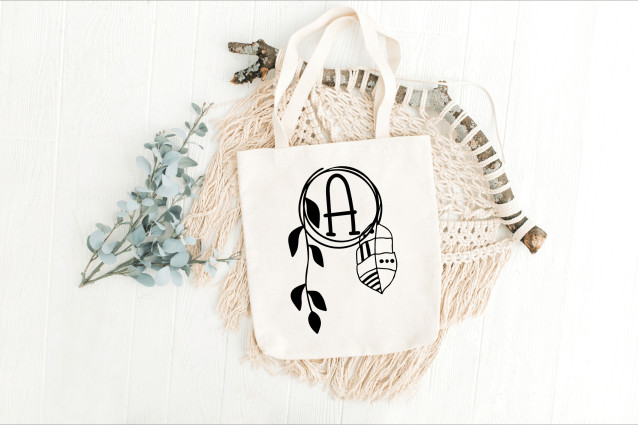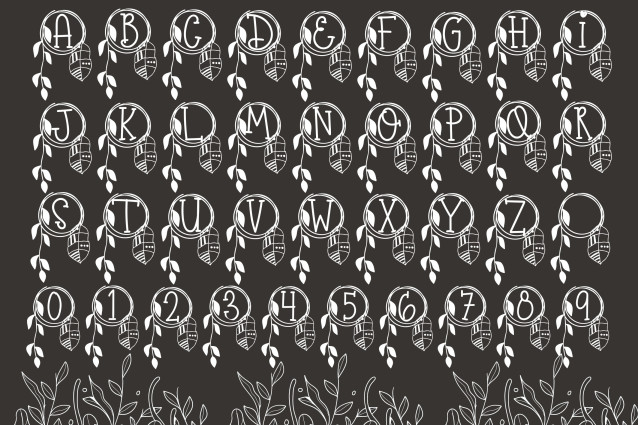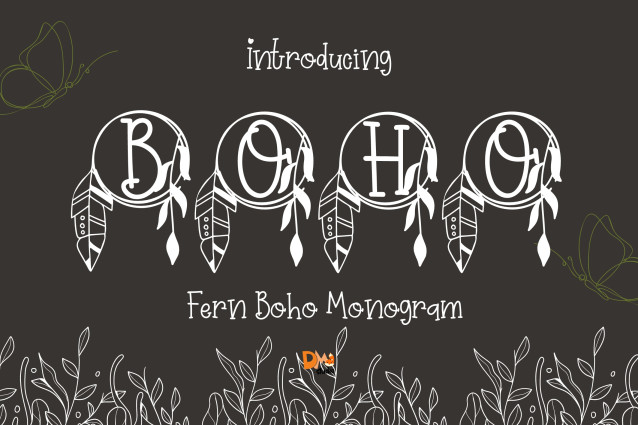
Fern Boho Monogram Font
Fern Boho Monogram Font is a serene and earthy serif monogram font, featuring uppercase letters adorned with graceful fern leaf illustrations. Inspired by wild nature and bohemian elegance, this font is perfect for wedding monograms, rustic branding, Cricut crafts, and handmade product packaging.